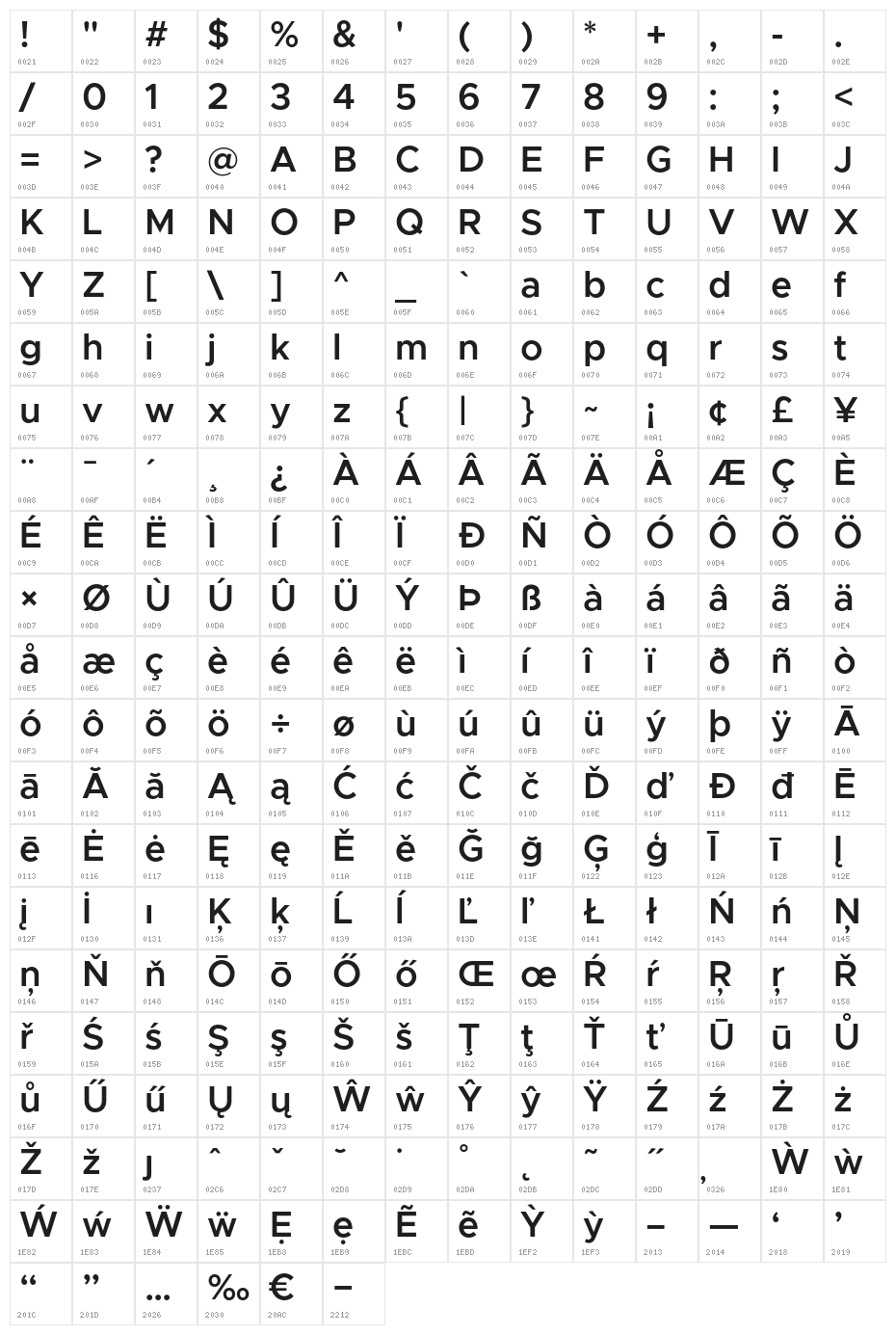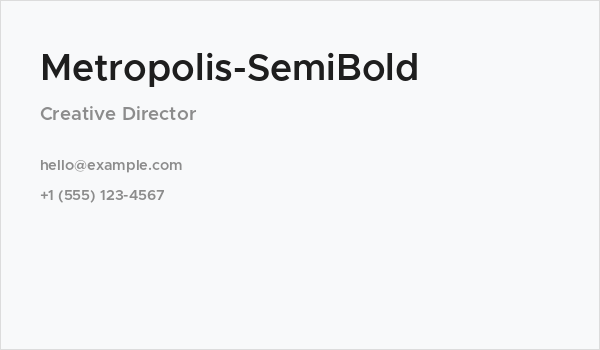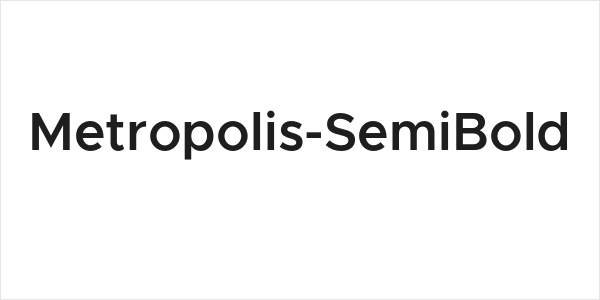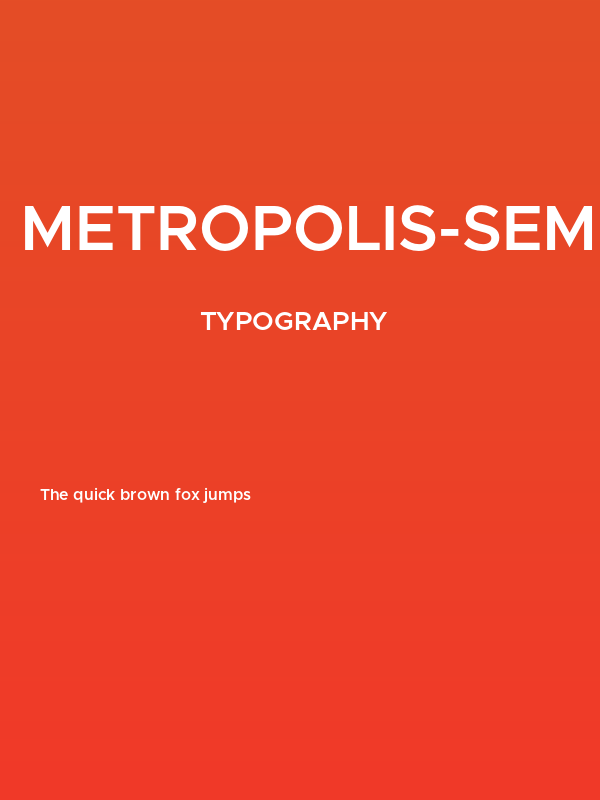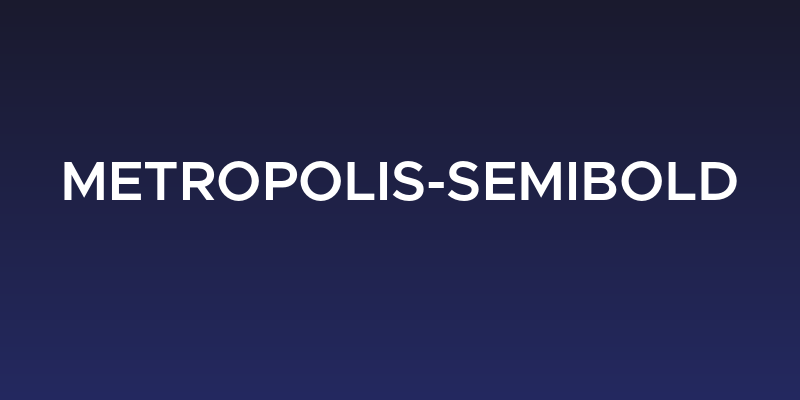
Metropolis-SemiBold Font
Metropolis-SemiBold Description
This font is a modern sans-serif typeface characterized by its clean and geometric design. The letters are well-balanced with uniform stroke widths, providing a harmonious and professional appearance. The uppercase letters are bold and impactful, while the lowercase letters maintain a consistent and approachable look. The numerals are clear and easily distinguishable, making them suitable for various applications. Special characters are designed with precision, ensuring readability and aesthetic appeal. This typeface is versatile, suitable for both digital and print media.